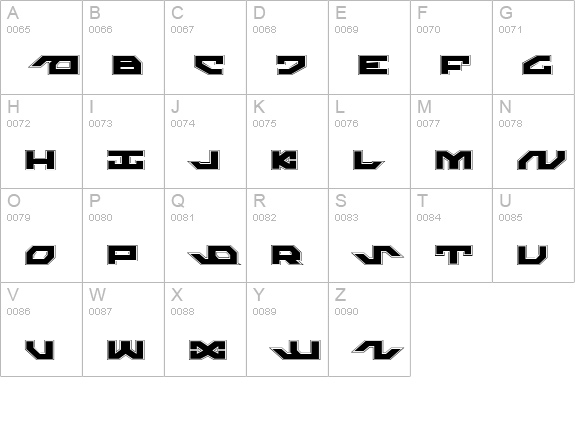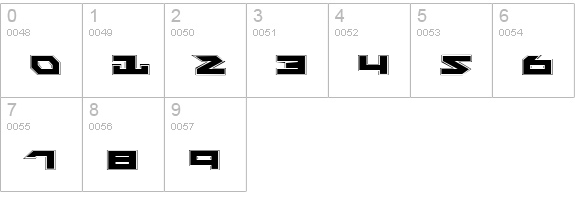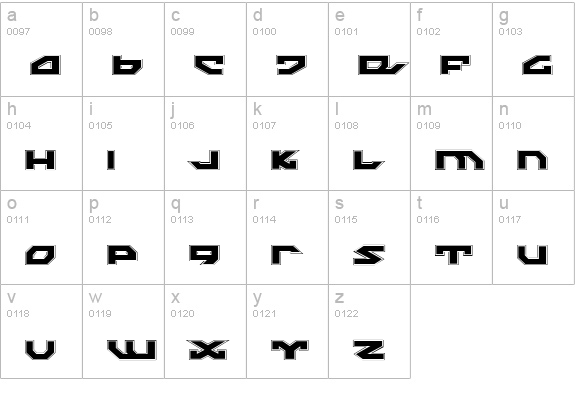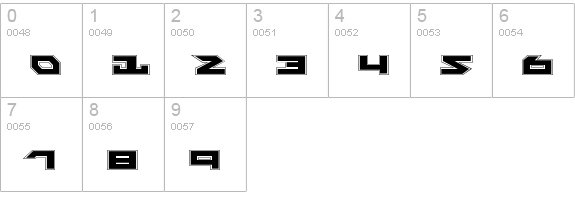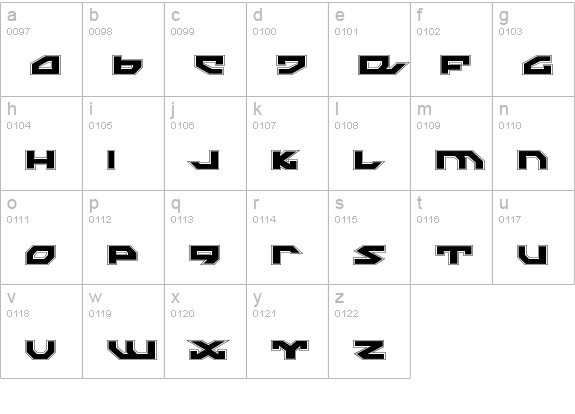
Nightrunner Pro font exudes an air of mystery and sophistication with its sleek and modern design. This versatile typeface is perfect for a wide range of creative projects, from branding to editorial design. Its sharp angles and clean lines give it a bold and edgy look that is sure to make a statement. Whether you're designing a sleek logo or crafting eye-catching headlines, Nightrunner Pro is the perfect choice to add a touch of modern elegance to your work. The best part? Nightrunner Pro is available for free download at FontsMarket.com. Now you can elevate your design projects with this stunning font without breaking the bank. Don't miss out on the opportunity to add Nightrunner Pro to your font collection and take your designs to the next level. Download it today and let your creativity shine!